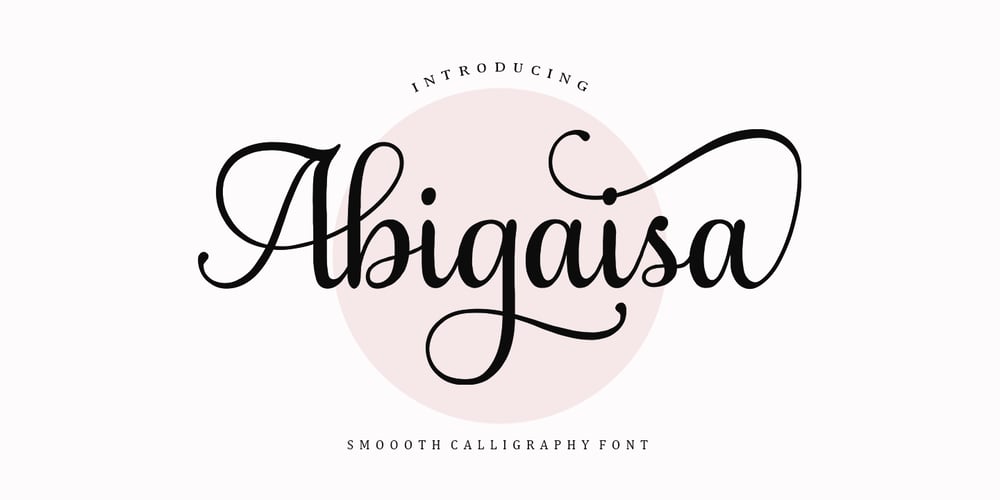
Abigaisa
Abigaisa font
Abigaisa Font Family was designed by Vina Amelia and published by Amelia Studio. Abigaisa contains 3 styles and family package options. Abigaisa is a Luxury calligraphy font with a dancing baseline and a clean, classic and elegant touch.It can be used for various purposes such as headings, signature, logos, wedding invitations, t-shirt, letterhead, signage, lable, news, posters, badges etc.Abigaisa Script features 350 total glyphs with 150 alternate characters including OpenType Stylistic alternates, ligatures and international language support.To enable the OpenType Stylistic alternates, you need a program that supports OpenType features such as Adobe Illustrator CS, Adobe Photoshop CC (With Glyphs Panel), Adobe Indesign & CorelDraw X6-X7, Microsoft Word 2010 or later versions. Also supported PUA encoded, simply copy and paste the alternate characters using the Character Map (Windows), Nexus Font (Windows), Font Book (Mac) or a software program such as PopChar (for Windows and Mac).